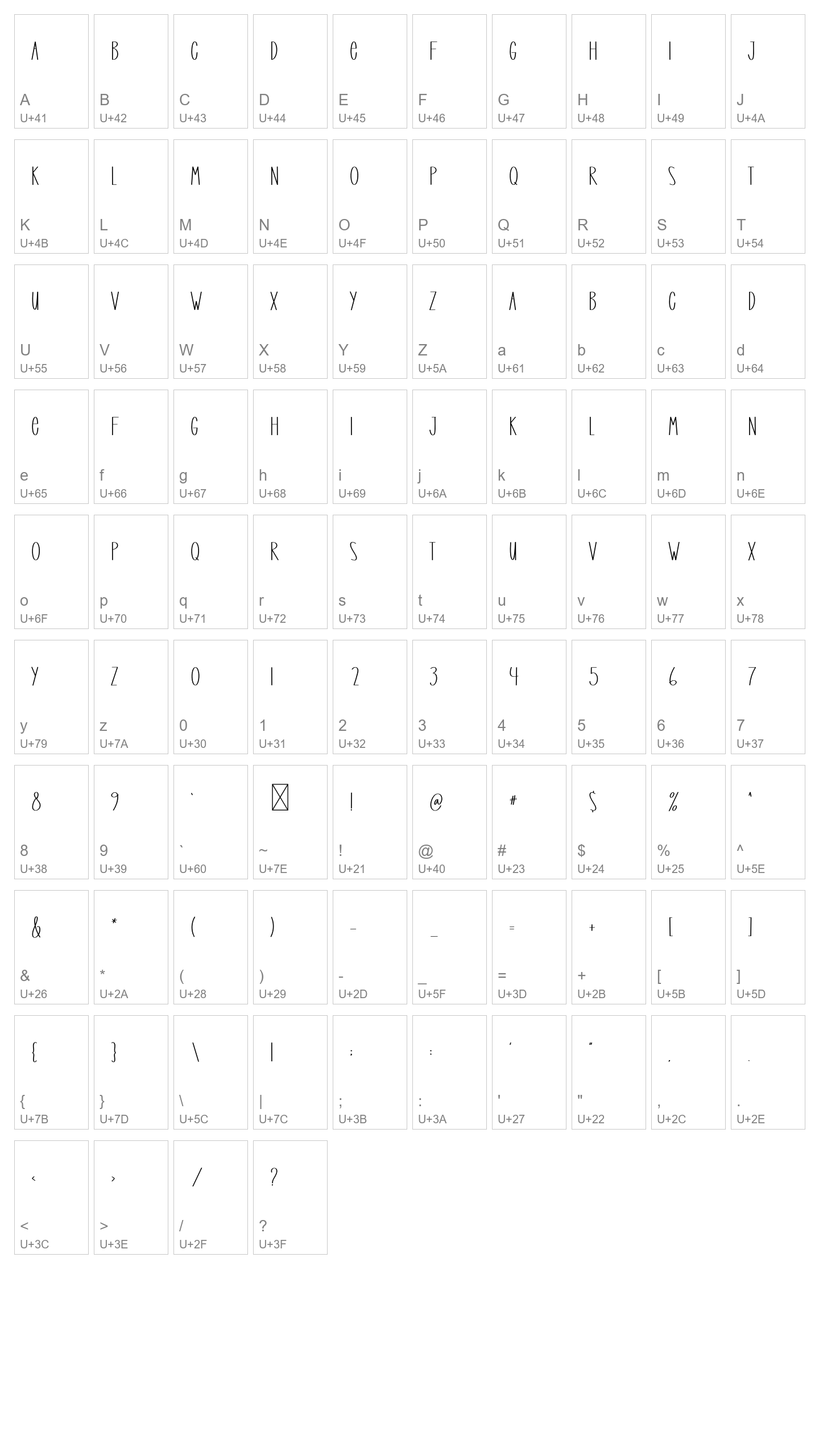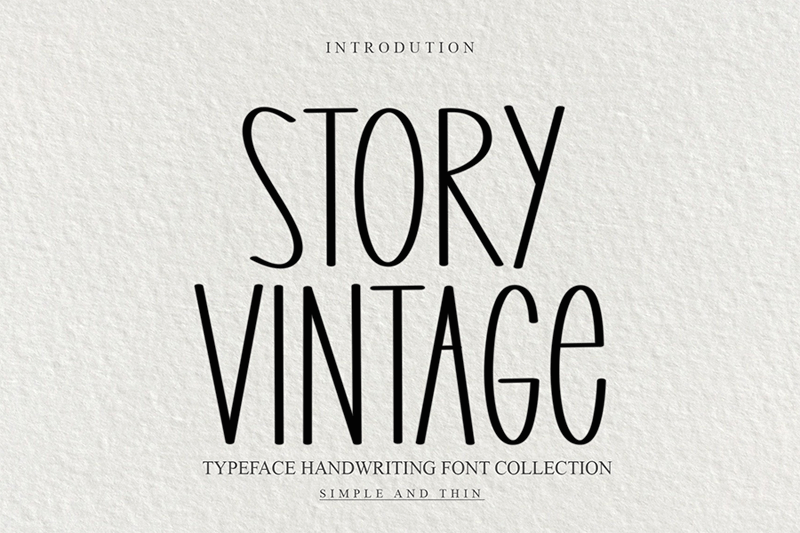
Story Vintage
This font retains a classy calligraphic influence while feeling contemporary and fresh. This versatility will attract a wide range of creative ideas, from letterheads and titles to stationery.